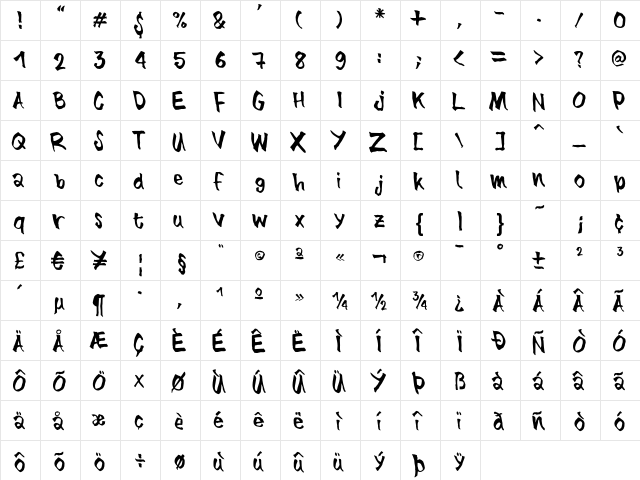
BlueBrush Regular
Design Context for BlueBrush Typeface
BlueBrush flows with the natural rhythm of handwritten lettering, making it ideal for designs that call for warmth and personal expression.
Font Pairing: Combine BlueBrush with a simple geometric sans for maximum contrast — the tension between flowing curves and clean structure is a classic typographic pairing.
Pro Tip: Use BlueBrush for short runs of text — names, titles, or taglines. Extended body copy in script faces tires the eye quickly.